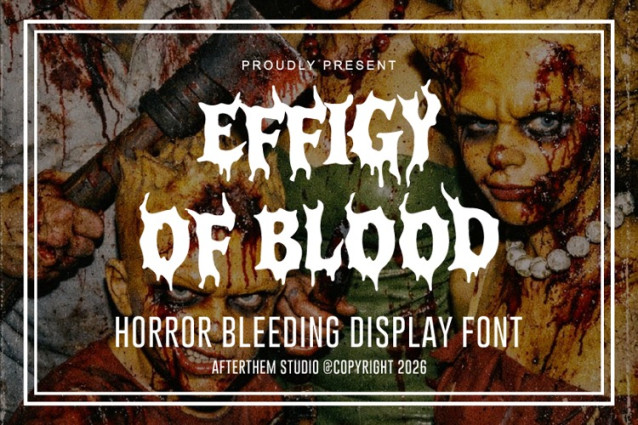
Effigy Of Blood Font
Effigy Of Blood Font is a simple and modern display font suitable for quotes, logos, headings, titles, and many more. Use it on any of your creative projects, and your designs will become outstanding!